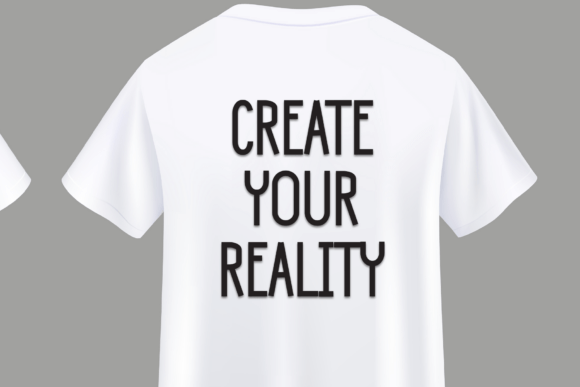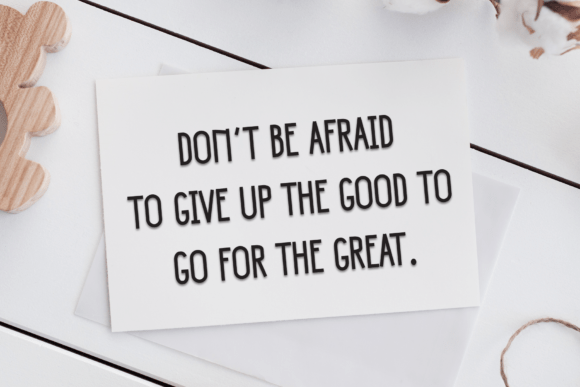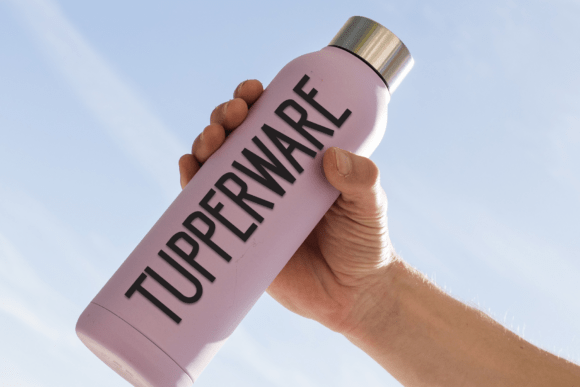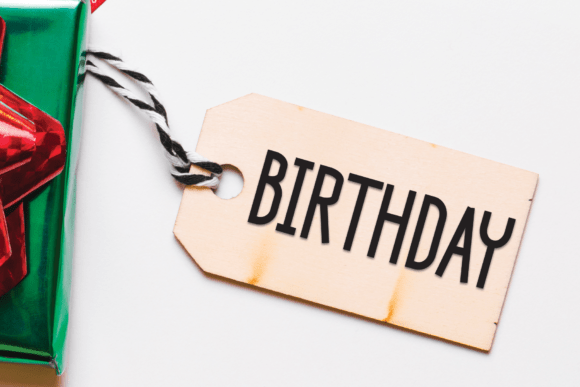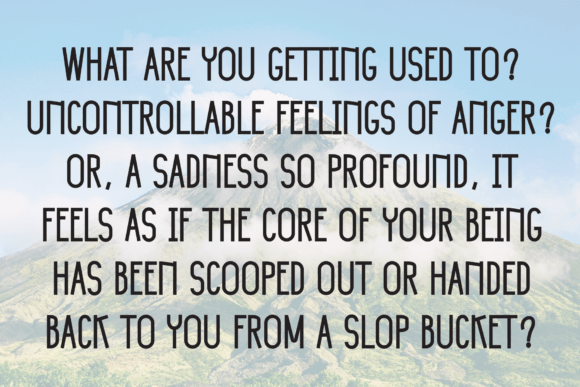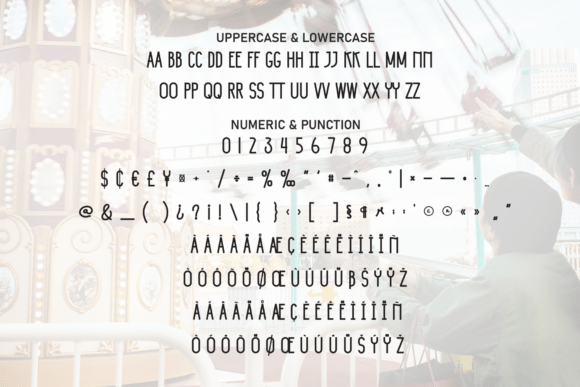
Deck the Halls with Holiday Cheer: Introducing the Christmas Carnival Font
As the holiday season approaches, designers are on the lookout for fonts that capture the magic and charm of the season. Whether it’s a festive social media post, a holiday-themed poster, or a gift tag, the right font can make all the difference. For those seeking a font that embodies the spirit of relaxed yet stylish design, look no further than the Christmas Carnival Font.
This versatile font is designed to add a fresh and friendly touch to any project, from branding and packaging to social media graphics. With its clean shapes, soft edges, and well-balanced letterforms, it’s the perfect choice for designers who want to convey a sense of approachability and personality. The Christmas Carnival Font is a valuable addition to any designer’s toolkit, offering both readability and style in equal measure.
Christmas Carnival Font Key Features
- Unique Characteristics: The font features a festive and playful design, with bold and colorful lines, making it perfect for Christmas-themed designs, party invitations, and holiday marketing materials.
Christmas Carnival Font Review
As a designer, I was excited to dive into the Christmas Carnival Font and see what it had to offer. Here’s my honest take:
- The font’s festive vibe is undeniable. It’s perfect for anything holiday-related, from invitations to social media graphics.
- The variety of styles and weights within the font family is impressive, giving designers plenty of options to choose from.
- The font is highly legible, making it easy to read even in smaller sizes.
- The font may be too over-the-top for some designs, particularly those that require a more subtle approach.
- The bold weights can sometimes appear a bit chunky, which may not be ideal for designs where precision is key.
- The font’s design feels somewhat generic, which may make it harder to stand out in a crowded design landscape.
Overall, I’d say the Christmas Carnival Font is a solid choice for holiday-themed designs, but may not be the best fit for more complex or subtle projects. With some careful consideration, it can be a great addition to any designer’s toolkit.
The Christmas Carnival Font is ideal for creating festive designs, such as:
– Holiday greeting cards and invitations
– Christmas party decorations and signage
– Gift tags and wrapping paper
– Social media graphics and ads